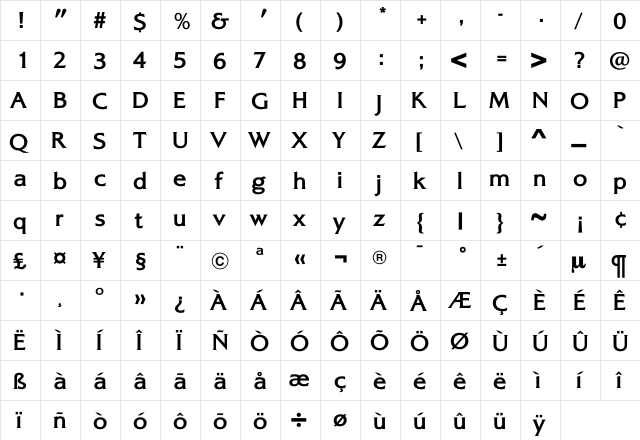
AlexonBold Regular
Design Context for AlexonBold Typeface
AlexonBold offers clean, dependable letterforms without strong stylistic allegiance, making it a practical choice for designers who need flexibility. Its bold stroke weight gives it real presence on the page.